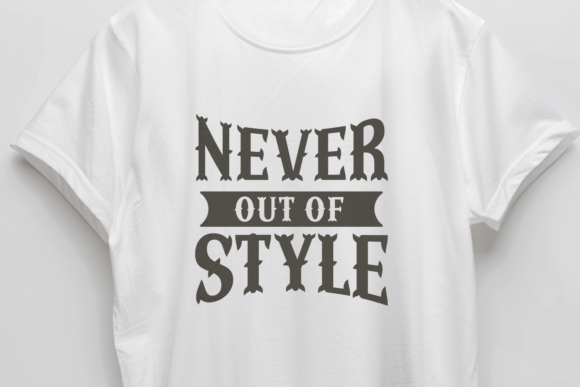
Create Better Font: A Bold Blackletter Typeface Inspired by the Old West
In the world of typography, fonts play a crucial role in conveying the tone and personality of a brand or design. With the vast array of fonts available, it can be challenging to find one that stands out from the rest and effectively communicates the desired message. This is where the Create Better font comes in – a bold blackletter typeface that seamlessly blends traditional Gothic style with distinctive elements of Western typography.
The Inspiration Behind Create Better Font
The Create Better font draws inspiration from the rich history of the Old West, evoking a sense of strength, tradition, and adventure. The font’s design is rooted in the Gothic style, which was prevalent during the Middle Ages. However, the addition of Western typography elements gives it a unique twist, setting it apart from traditional Gothic fonts.
Key Features of Create Better Font
The Create Better font boasts several key features that make it an excellent choice for designers looking to add a touch of drama and grandeur to their work. Some of its notable features include:
- Bold and Dramatic: The Create Better font is designed to make a statement. Its bold and dramatic appearance makes it perfect for large headlines, branding, and product packaging.
- Unique Fusion: The font’s fusion of traditional Gothic style with Western typography elements creates a distinctive and rugged typeface that is both eye-catching and memorable.
- High Versatility: The Create Better font is highly versatile and can be used across various design projects, from posters and flyers to logos and product labels.
Design Elements of Create Better Font
The Create Better font features a range of design elements that contribute to its unique and rugged appearance. Some of its notable design elements include:
- Intricate Letterforms: The font’s letterforms are intricately designed, with bold lines and distinctive flourishes that add to its dramatic appearance.
- Western-Inspired Ornaments: The font features Western-inspired ornaments, such as serifs and terminals, which add to its rugged and adventurous feel.
- Traditional Gothic Influence: The font’s traditional Gothic influence is evident in its use of classic letterforms and Gothic-inspired flourishes.
Best Use Cases for Create Better Font
The Create Better font is an excellent choice for a range of design projects, including:
- Headlines and Titles: The font’s bold and dramatic appearance makes it perfect for headlines and titles that need to grab attention.
- Branding and Logo Design: The font’s unique fusion of Gothic and Western typography elements makes it an excellent choice for branding and logo design projects.
- Product Packaging: The font’s rugged and adventurous feel makes it perfect for product packaging designs that need to evoke a sense of strength and tradition.
- Posters and Flyers: The font’s high versatility makes it an excellent choice for posters and flyers that need to convey a sense of drama and grandeur.
Tips for Using Create Better Font
To get the most out of the Create Better font, here are some tips to keep in mind:
- Use it Sparingly: Due to its bold and dramatic appearance, it’s best to use the Create Better font sparingly to avoid overwhelming the design.
- Pair it with a Sans-Serif Font: Pairing the Create Better font with a sans-serif font can help create a nice contrast and add visual interest to the design.
- Experiment with Font Sizes: Experimenting with different font sizes can help create a sense of hierarchy and add depth to the design.
In conclusion, the Create Better font is a bold and dramatic typeface that blends traditional Gothic style with distinctive elements of Western typography. Its unique fusion of styles makes it an excellent choice for designers looking to add a touch of strength, tradition, and adventure to their work. With its high versatility and range of design elements, the Create Better font is perfect for a variety of design projects, from headlines and titles to branding and product packaging.